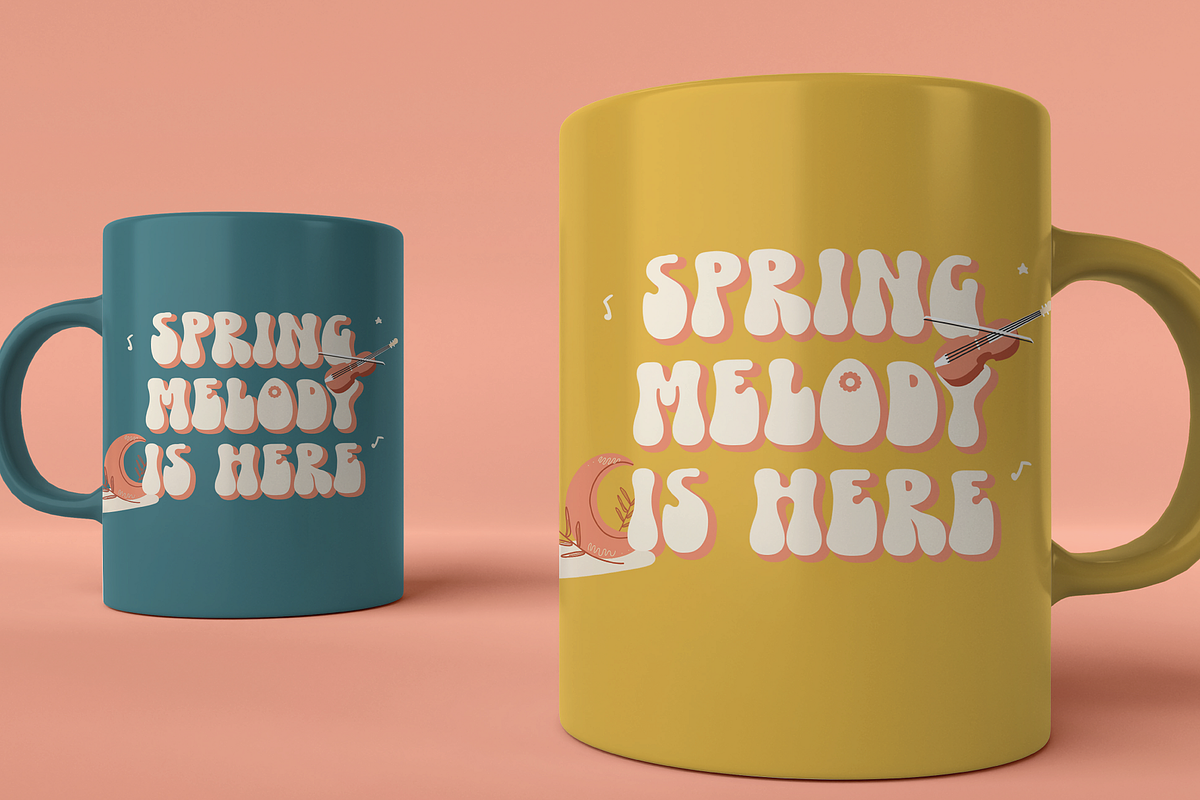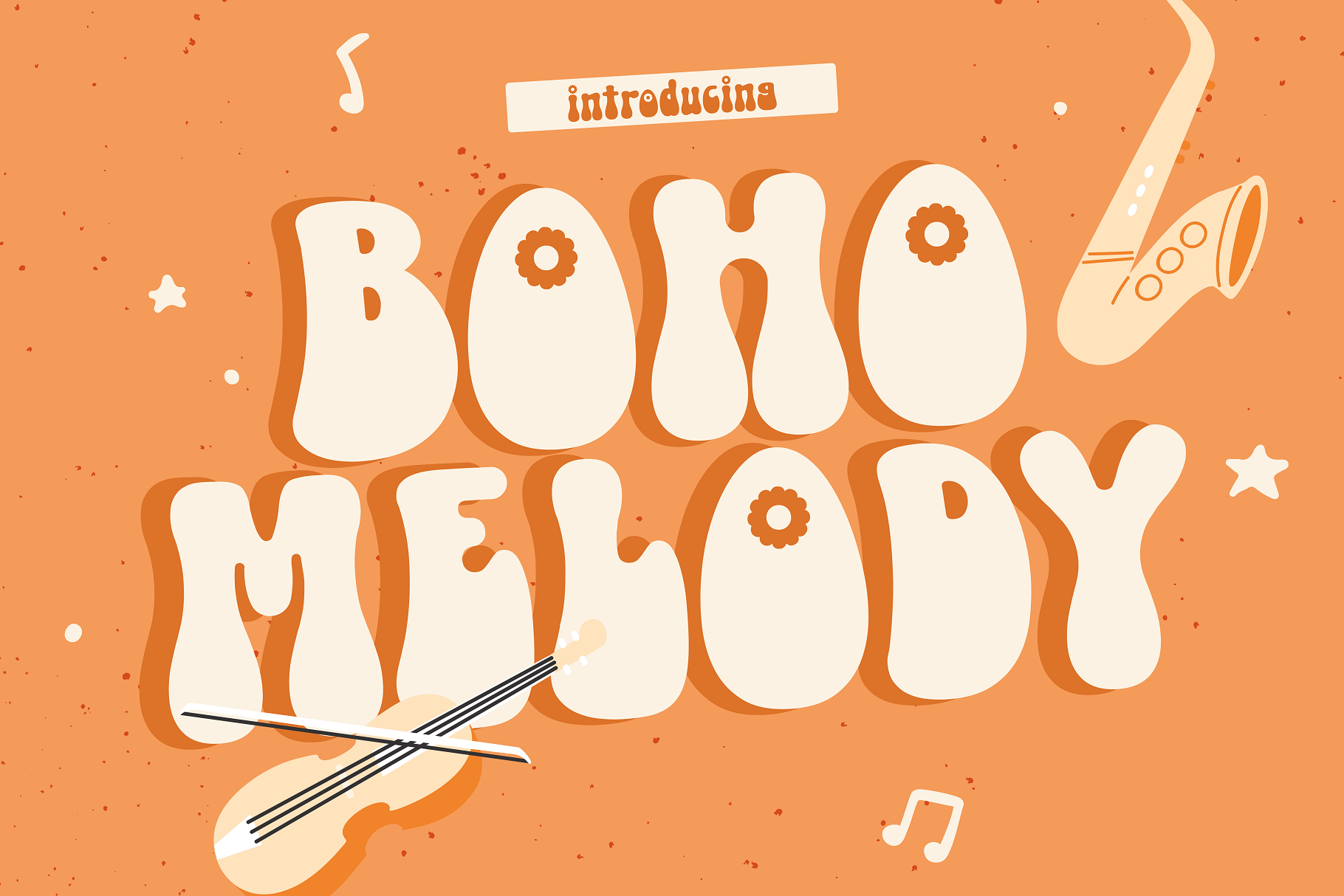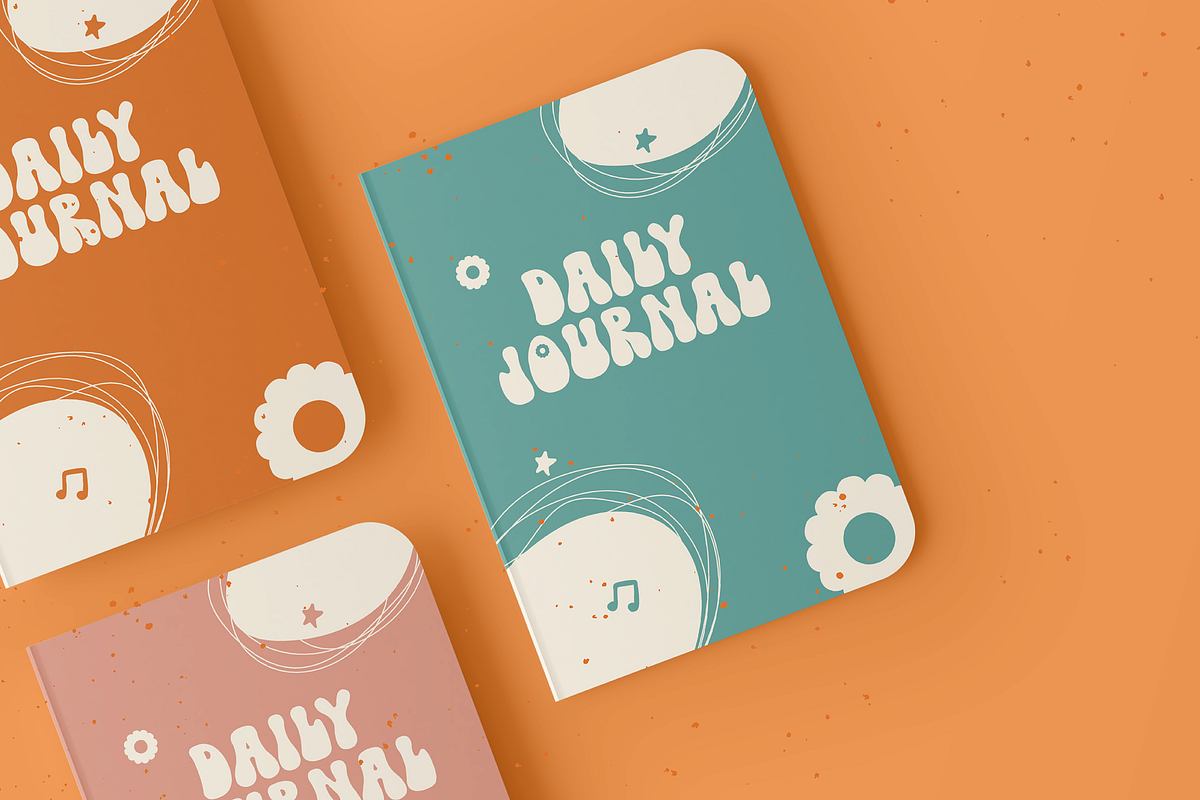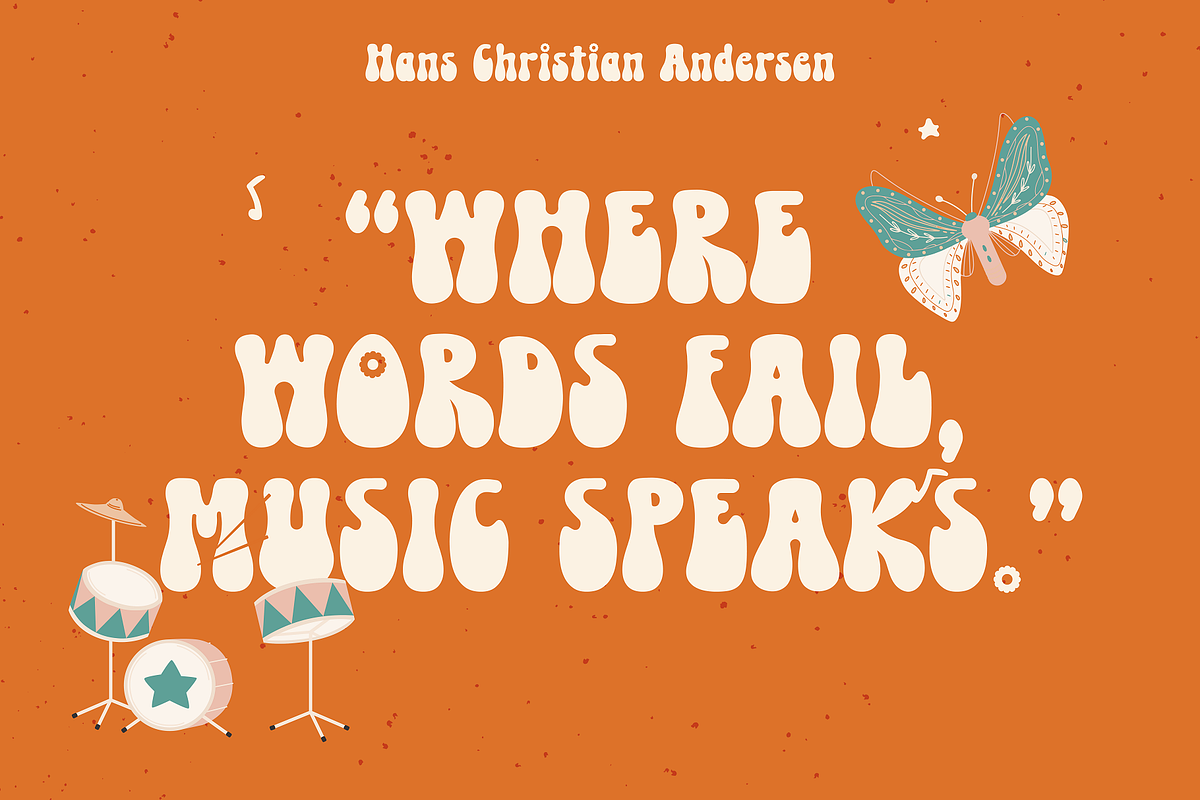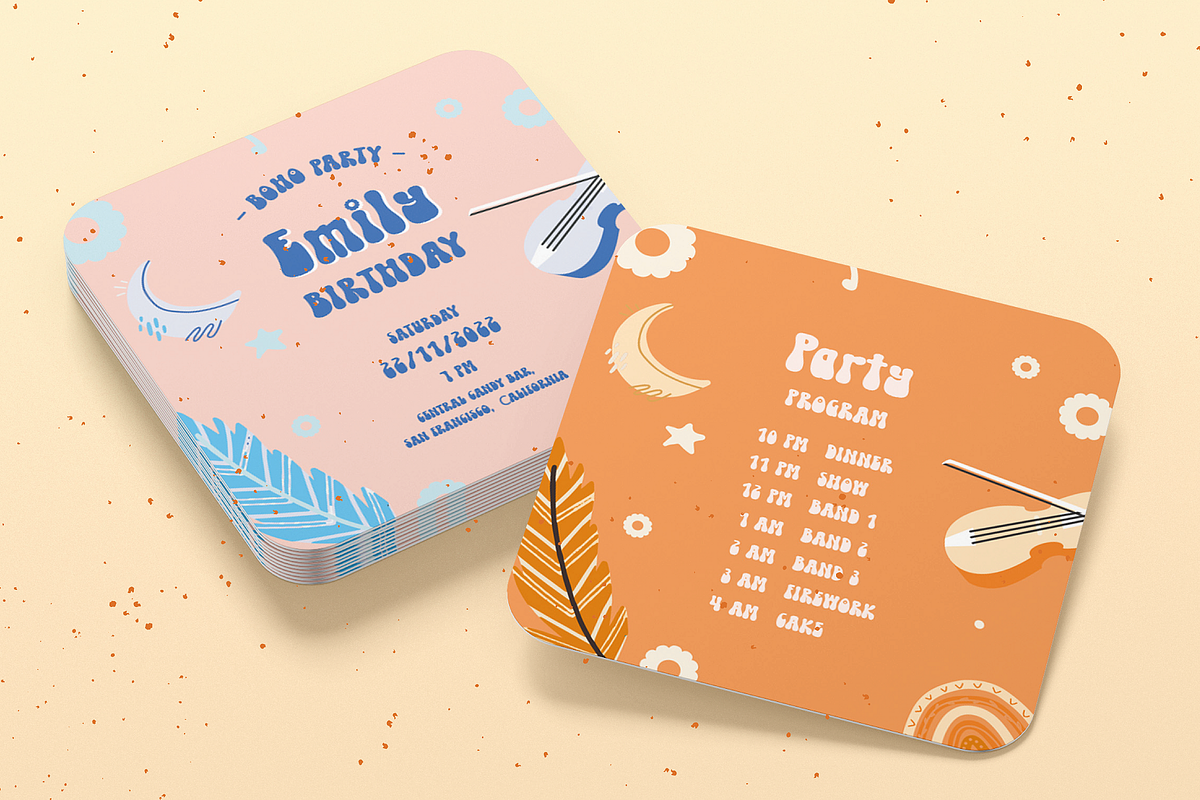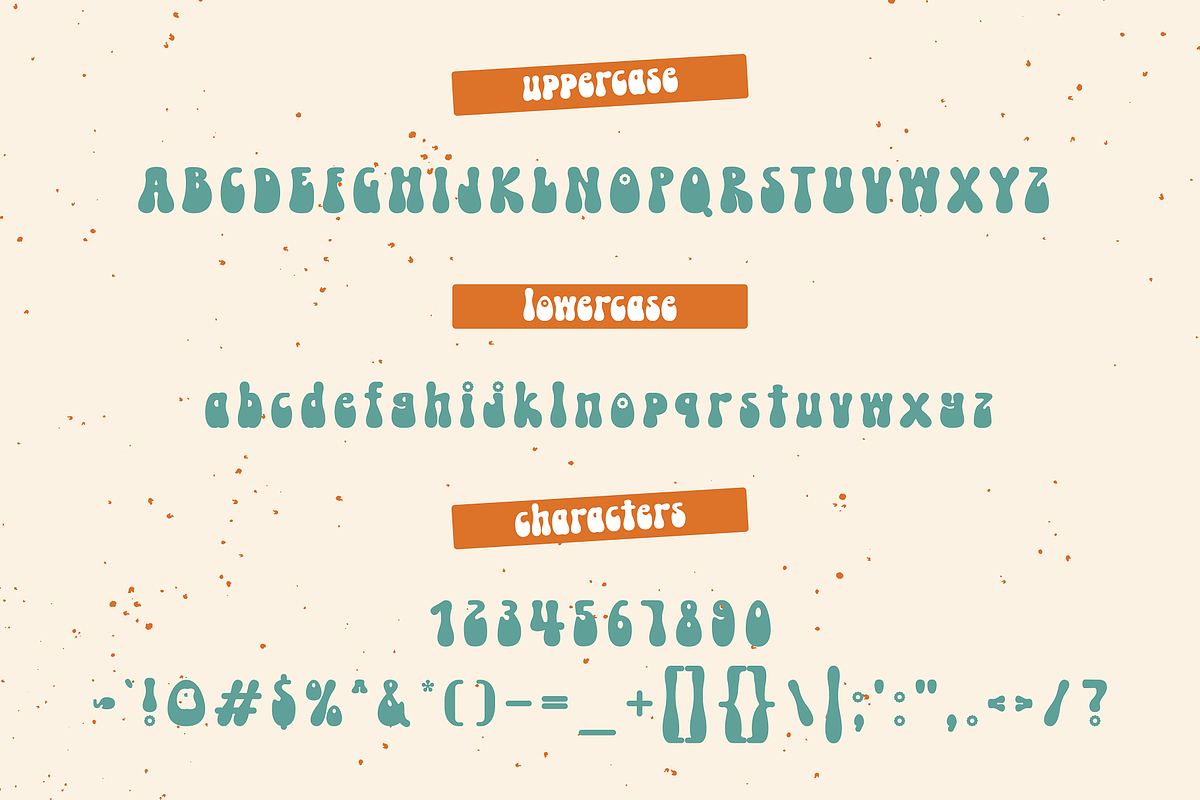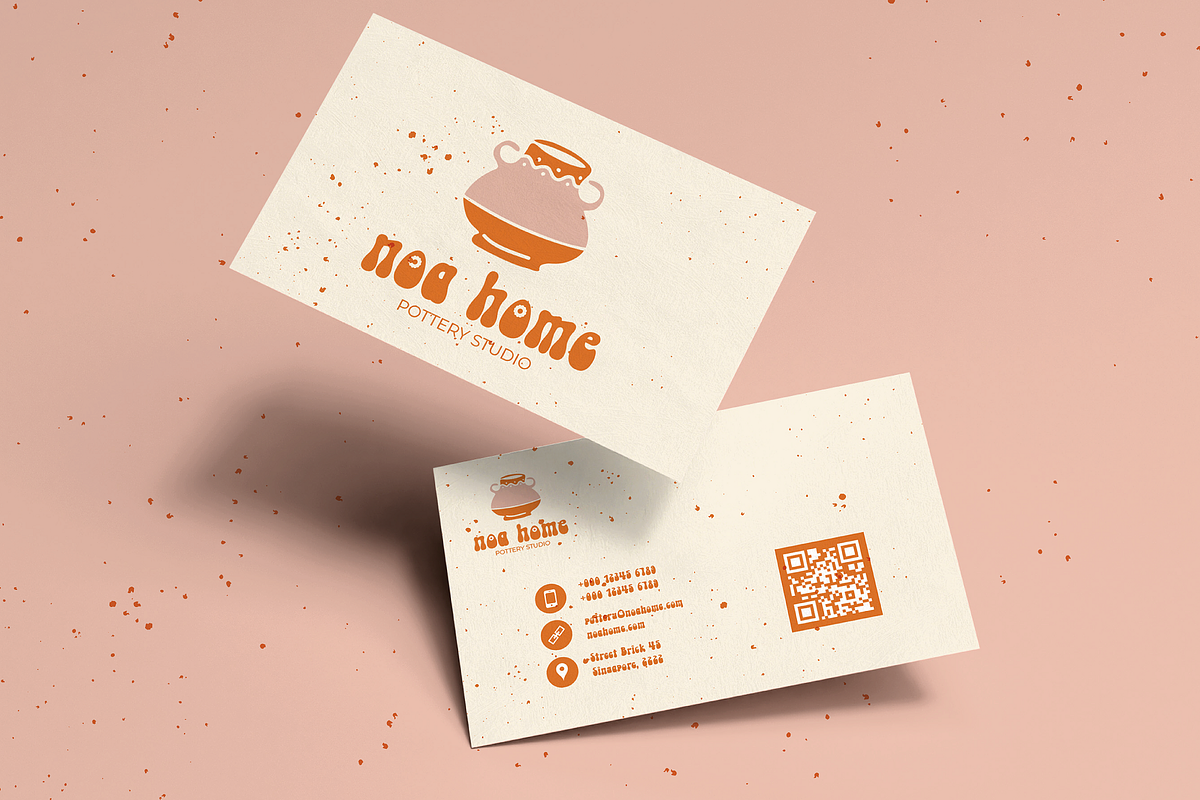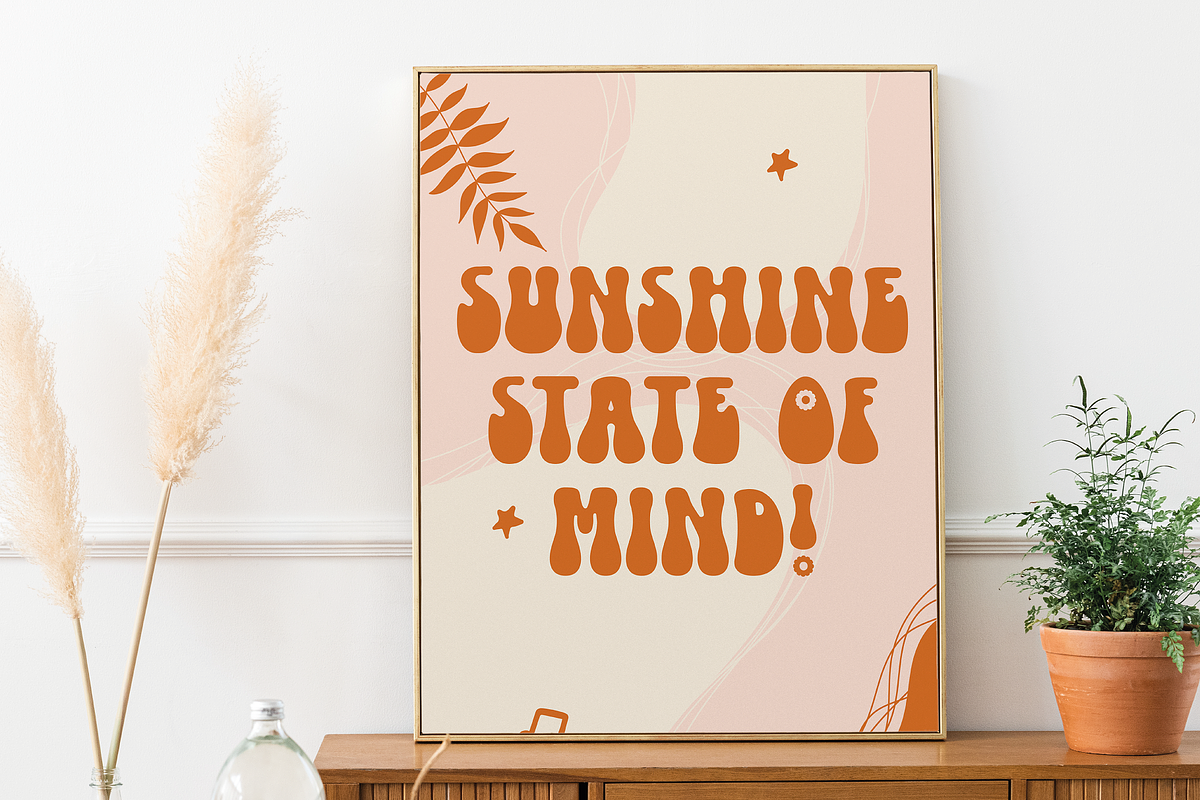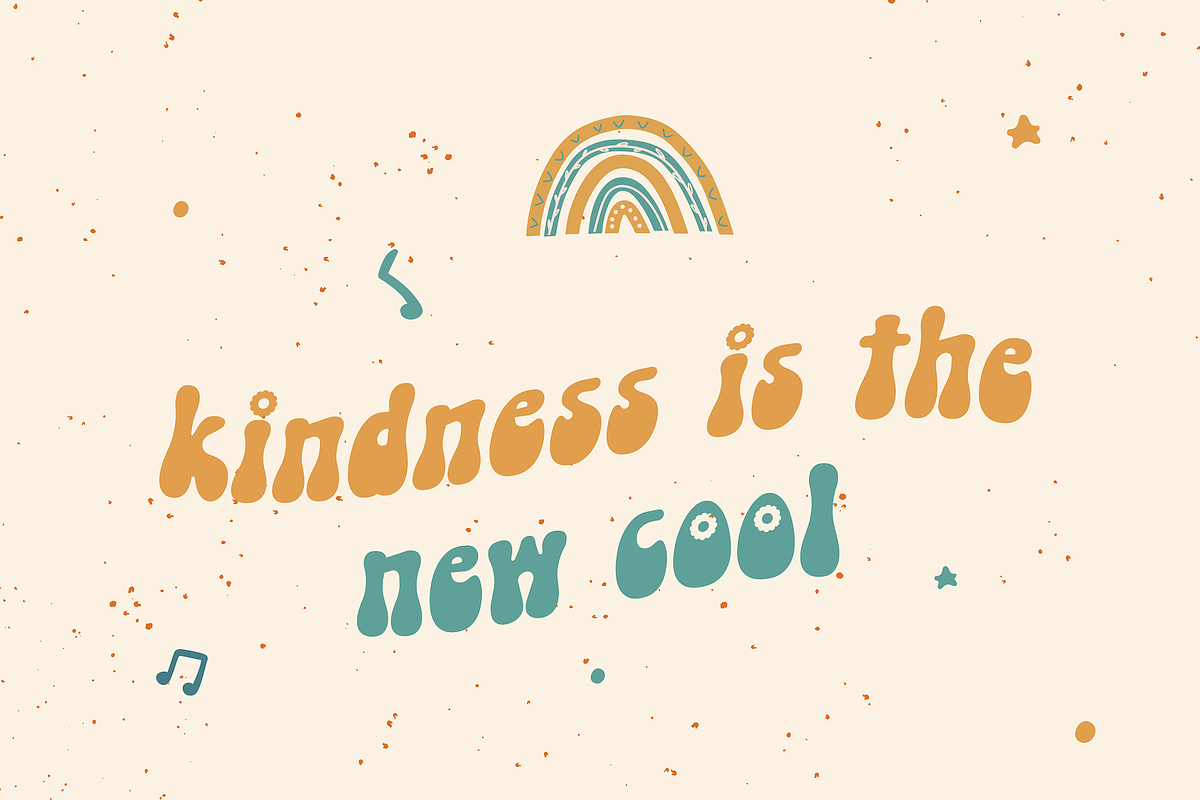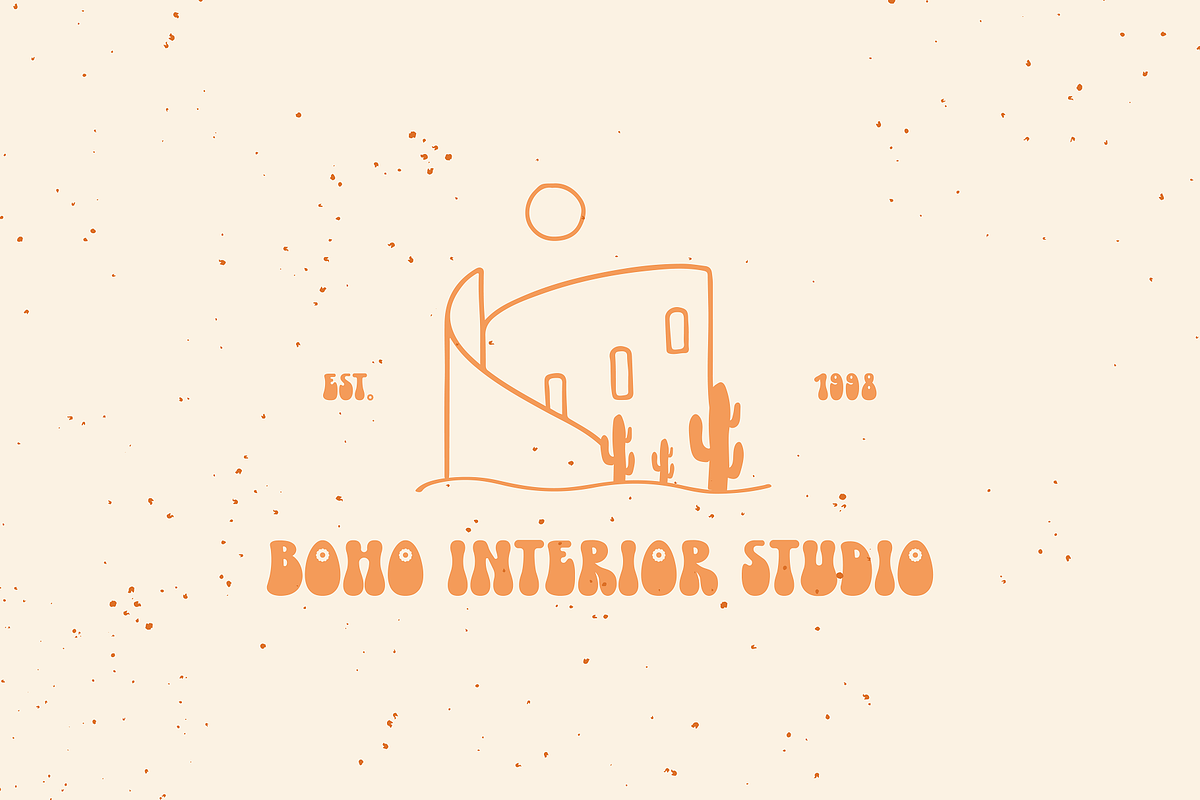
Boho Melody - Groovy Typeface
Introducing "Boho Melody," a font that takes you on a thrilling time-travel journey to the heart of the 1970s. With its groovy, retro-inspired design, this typeface captures the essence of a bygone era, channeling the spirit of bell-bottoms, disco balls, and peace signs.
Boho Melody seamlessly combines the chubby, old-style aesthetics of that iconic decade, giving your projects a unique and captivating charm. Each character dances with a playful rhythm, bringing a touch of nostalgia to your designs while infusing them with a fresh, contemporary twist.
Get ready to groove to the Boho Melody and let your creativity flow with this font that's as timeless as it is trendy.